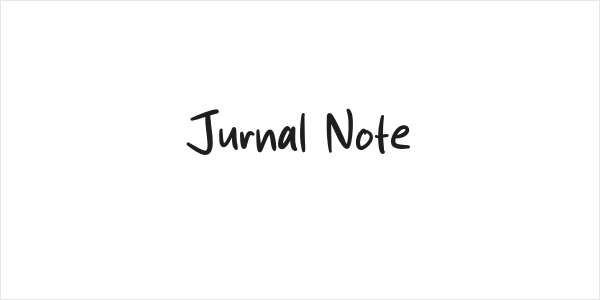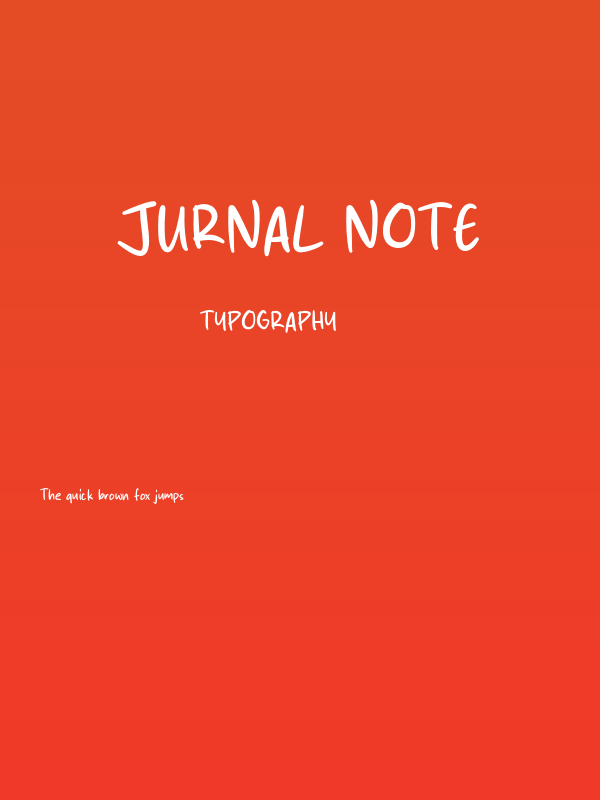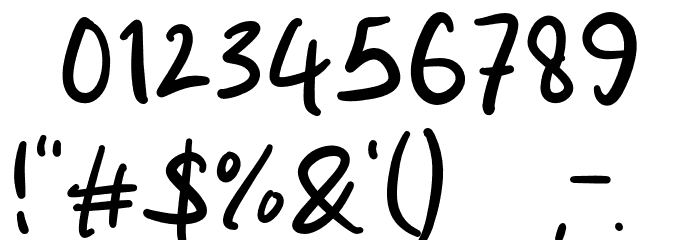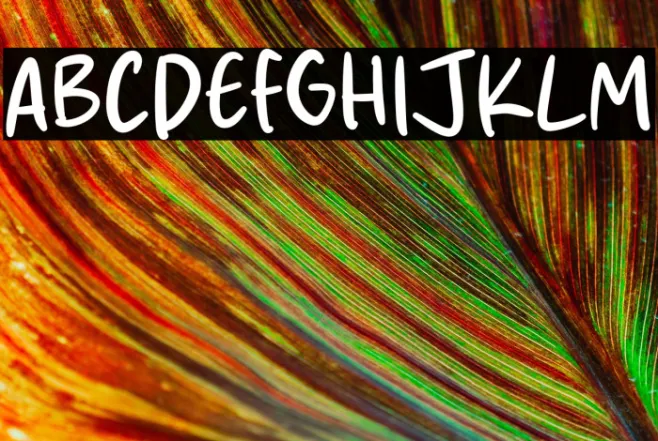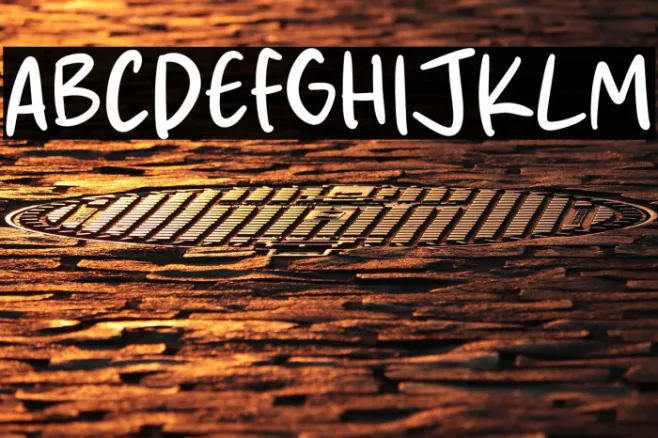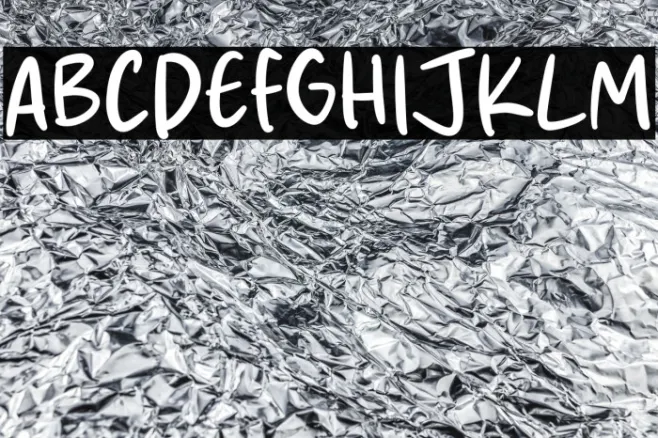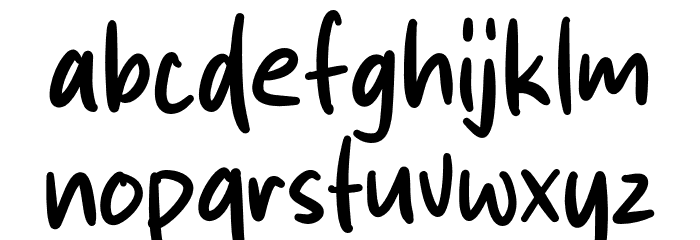
Jurnal Note Font
Jurnal Note Description
This font exudes a casual and handwritten style, characterized by its playful and informal appearance. The letters are slightly irregular, mimicking the natural flow of handwriting. The strokes are consistent in thickness, providing a uniform look while maintaining a lively and dynamic feel. The rounded edges and smooth curves contribute to its approachable and friendly demeanor. This font is versatile, suitable for projects that require a personal touch or a relaxed vibe. It is ideal for creative designs, personal notes, or any context where a human element is desired.
| Use Case | Logos, Headlines, Informal Text |
| Proposed Projects | Ideal for personal notes, creative designs, greeting cards, and informal branding. |